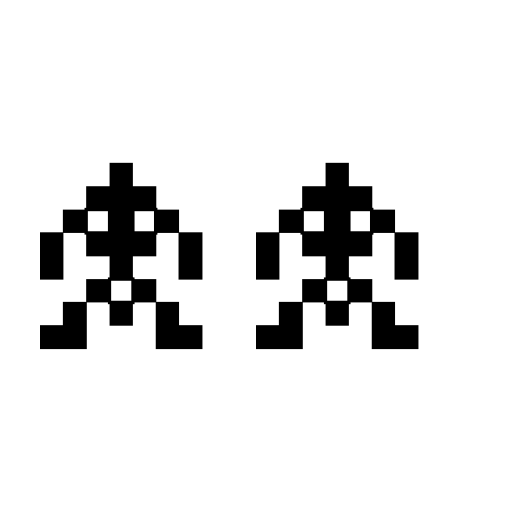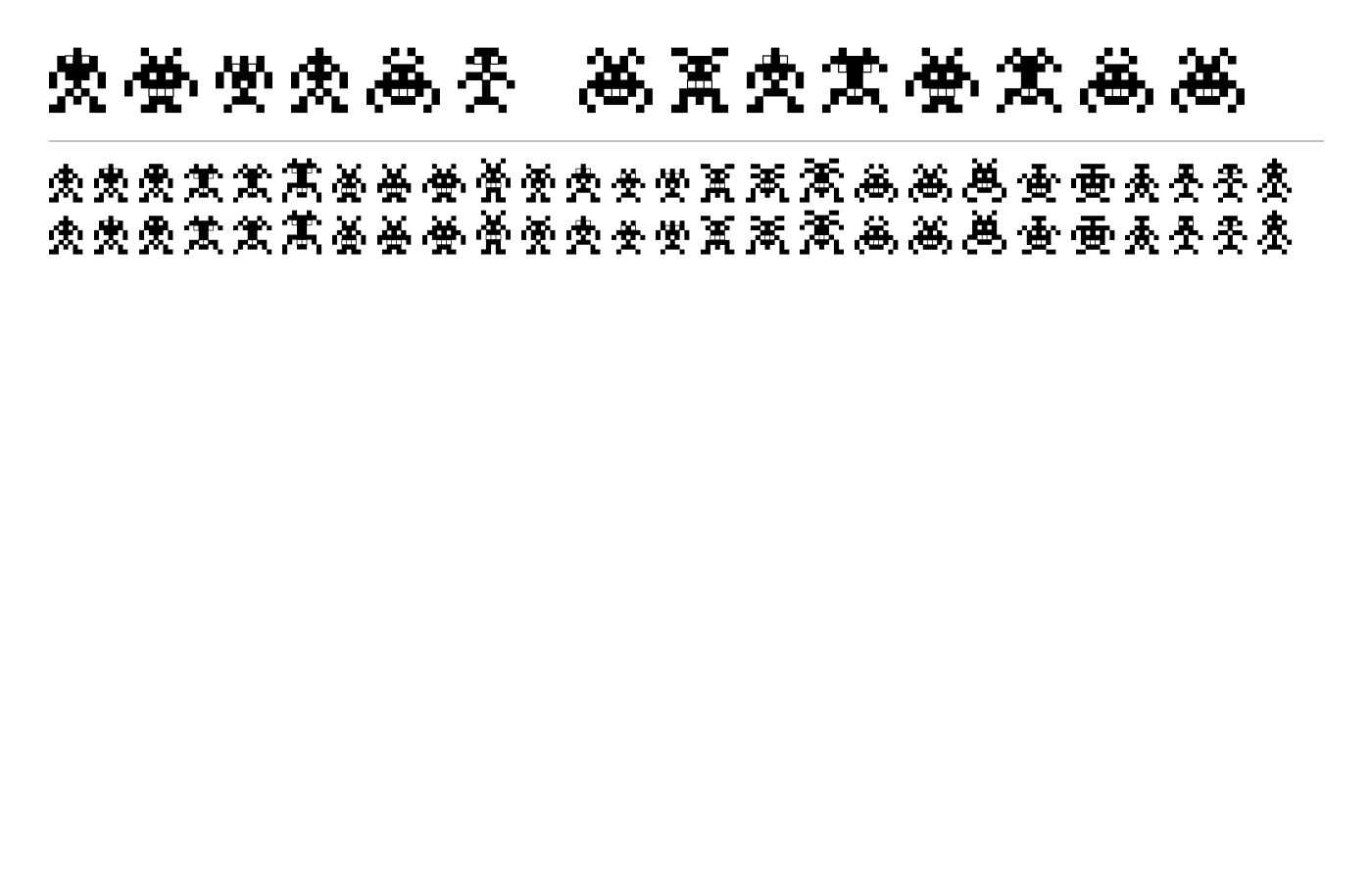
Binary Soldiers is a pixelated, monospace decorative font designed to resemble 8-bit video game characters, giving it a playful and retro digital feel. Its rigid, blocky shapes and uniform square pixels make it ideal for designs that want to evoke nostalgia for classic arcade gaming or vintage computer aesthetics. This font works perfectly for gaming logos, digital art, and thematic posters where a bold, fun, and tech-inspired atmosphere is desired.
Binary Soldiers Font
About Binary Soldiers Font
| Font family | Binary Soldiers Font |
| Designer | M.Chodakowski |